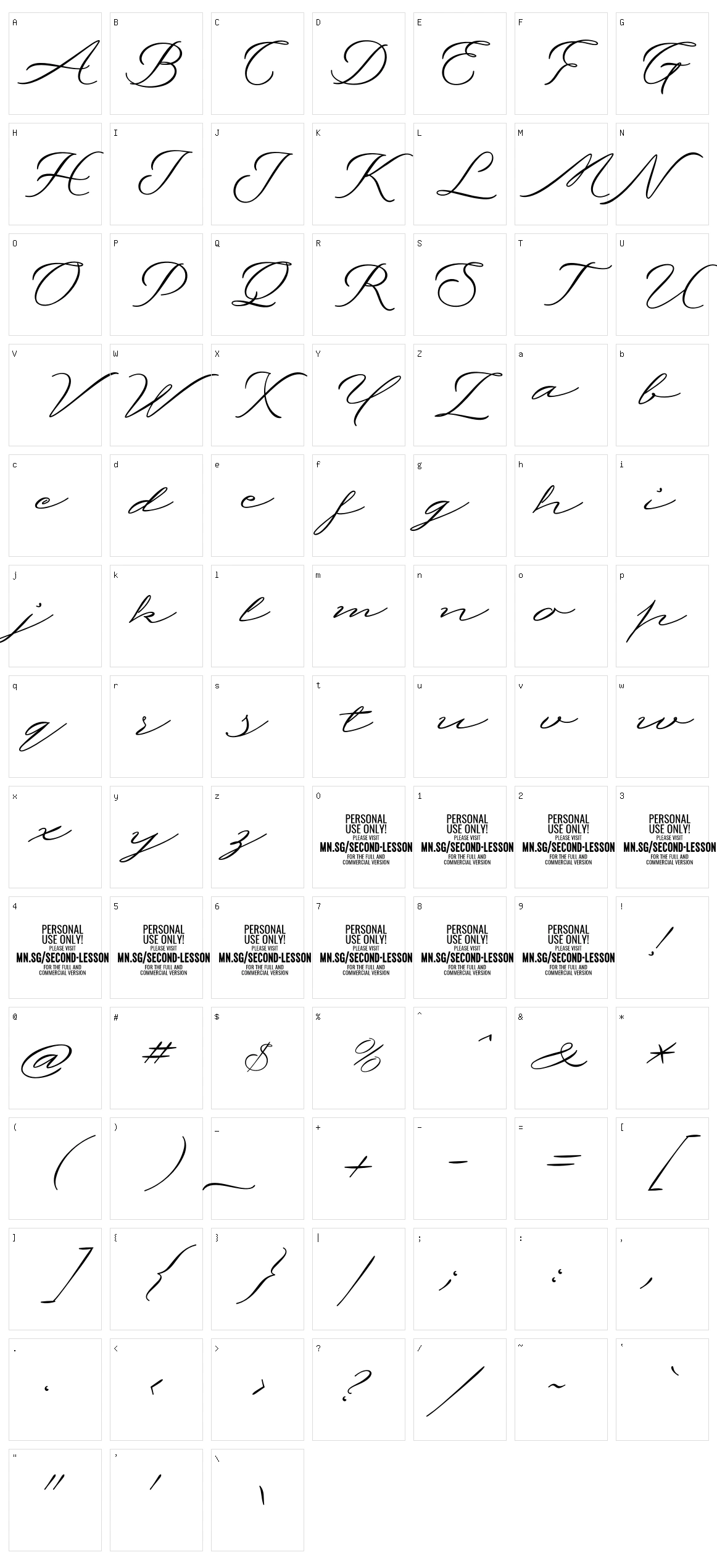
Second Lesson is a classic handwriting typeface.
A calligraphic typeface family, Second Lesson follows the flowing and traditional handwritten typography taught at school.
The script lettering is provided in styles Regular and Bold, and consists of over 1000 glyphs and support all Latin based languages as well as Russian, Bulgarian and other Cyrillic languages.
Drawn and created by Mans Greback in 2021, this lettering has a slanted style and a beautiful personality.
The font is built with advanced OpenType functionality and has a guaranteed top-notch quality, containing stylistic and contextual alternates, ligatures and more features; all to give you full control and customizability.
It has extensive lingual support, covering all Latin-based languages, from North Europe to South Africa, from America to South-East Asia. It also supports Cyrillic.
It contains all characters and symbols you'll ever need, including all punctuation and numbers.